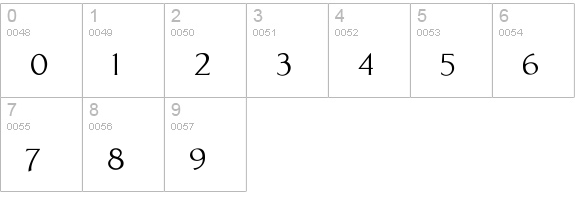
Aperto Regular is the standard, neutral variant in the Aperto typeface family \xE2\x80\x94 well suited to general body text, paragraphs, and standard typographic work.
Aperto Regular is a versatile and elegant font that strikes the perfect balance between modernity and classic design. With its clean lines and timeless aesthetic, this font is ideal for a wide range of projects, from branding and advertising to web design and editorial content. What sets Aperto Regular apart is its effortless readability and sophisticated charm, making it a go-to choice for designers looking to create polished and professional visuals. Whether you're working on a sleek website, a stylish magazine layout, or a sophisticated logo, Aperto Regular will help you achieve a refined and cohesive look. Best of all, Aperto Regular is available for free download at FontsMarket.com, allowing you to access this premium font without any cost. Don't miss out on the opportunity to elevate your design projects with the timeless appeal of Aperto Regular. Download it today and start creating stunning visuals that stand out from the crowd.